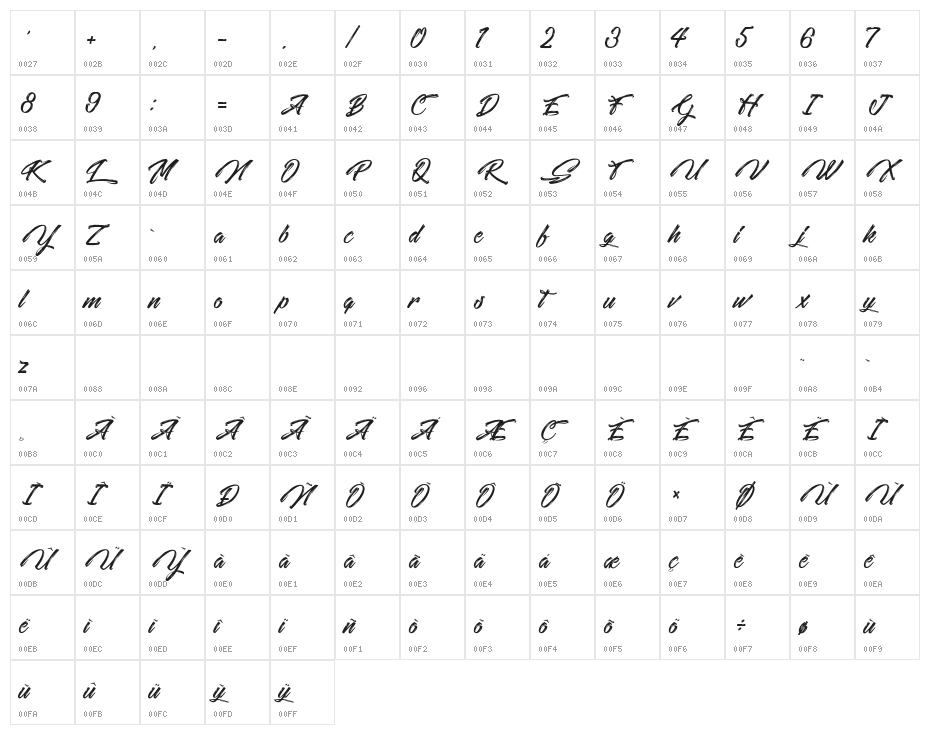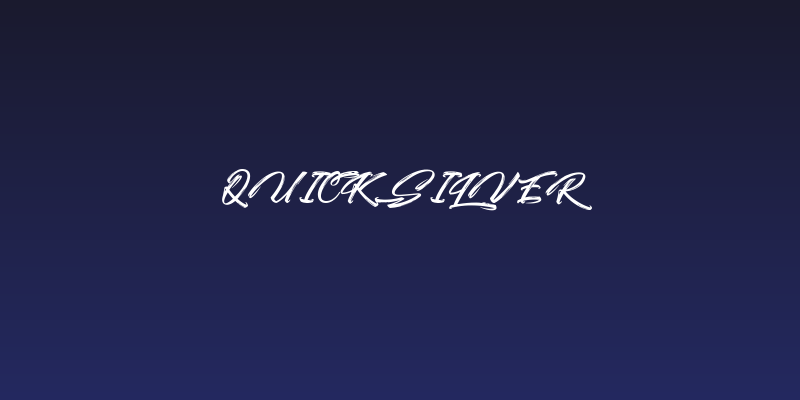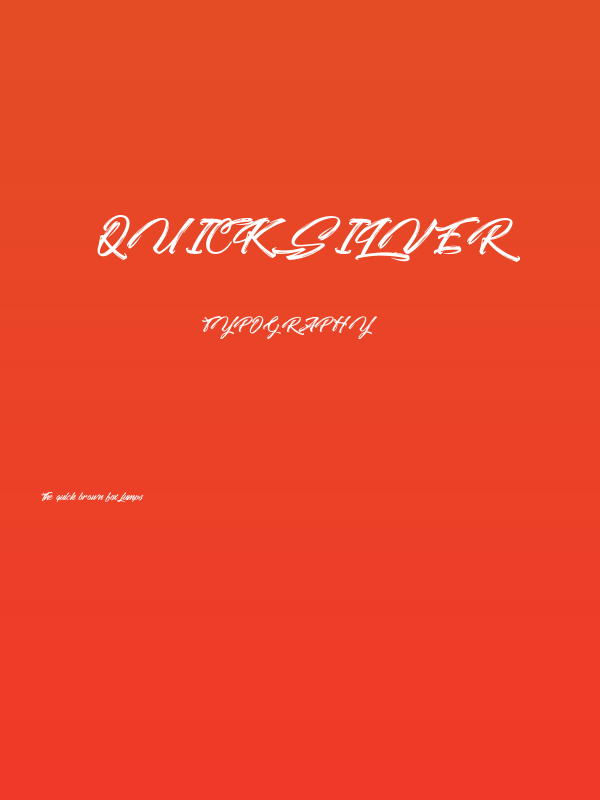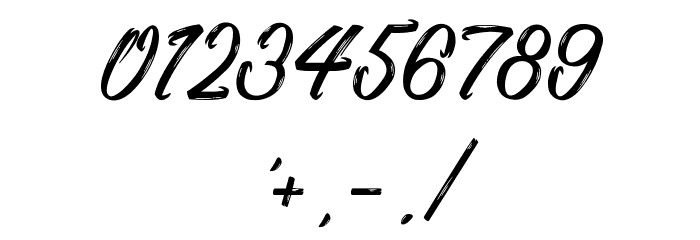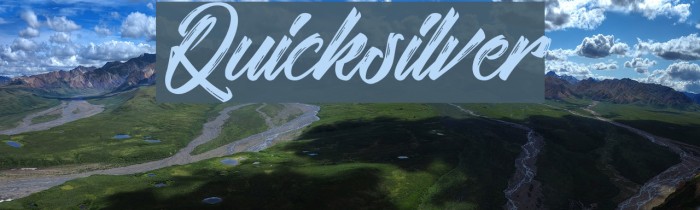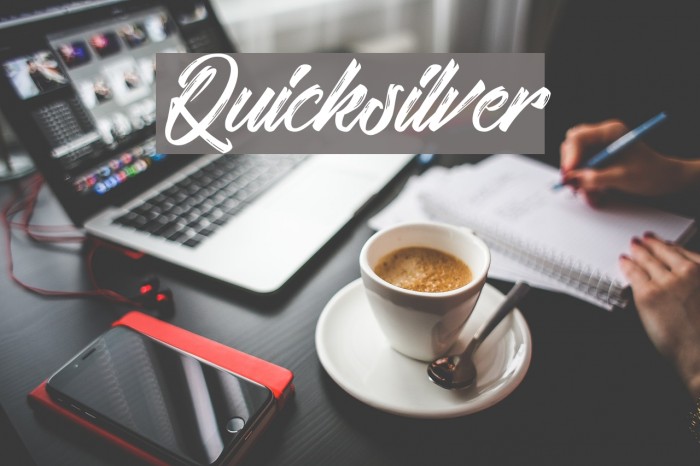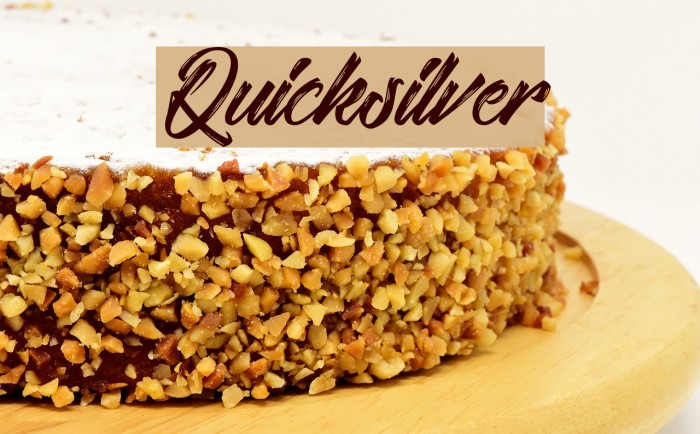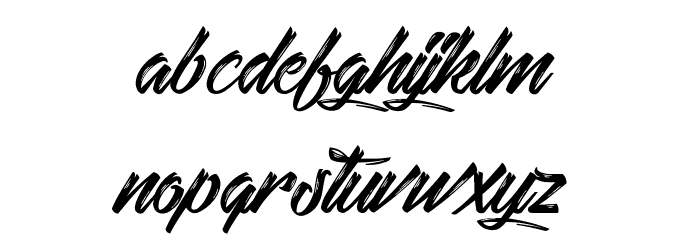
Quicksilver Font
Quicksilver Description
This font exudes a dynamic and energetic style with its bold, cursive strokes and fluid motion. The characters are designed with a sense of movement, giving them a lively and expressive appearance. The uppercase letters are particularly striking, with elongated and sweeping lines that create a sense of elegance and flair. The lowercase letters maintain this fluidity, offering a harmonious balance between readability and artistic expression. Numbers and special characters are crafted with the same attention to detail, ensuring consistency across the entire typeface. This font is ideal for projects that require a touch of sophistication and creativity.